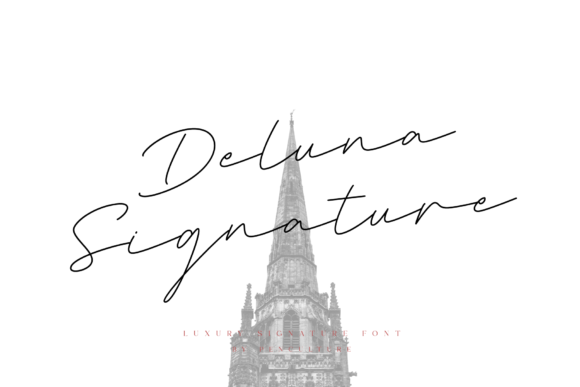
Journey into the realm of elegance with Deluna Signature Font, a captivating script font that embodies grace and sophistication. Inspired by the allure of Vogue magazine, Deluna Signature is the perfect choice for those seeking to make a statement with their designs. Let your creativity soar as you explore the endless possibilities of this font, meticulously crafted by the talented team at Pen Culture.
Deluna Signature's slender strokes and graceful lines evoke a sense of timeless beauty. Its thin, delicate appearance adds a touch of refinement to any project, making it ideal for creating stunning wedding invitations that exude romance and elegance. Elevate your stationary art with Deluna Signature, transforming ordinary cards and letters into exquisite works of art that leave a lasting impression.
Unleash your creativity on social media with Deluna Signature, crafting eye-catching posts that demand attention. From captivating quotes to stunning product announcements, Deluna Signature will elevate your content to new heights, ensuring your message stands out in the crowded digital landscape. Whether you're a seasoned designer or just starting out, Deluna Signature is the perfect font to add a touch of magic to your projects.
With its versatility and timeless appeal, Deluna Signature is a font that will accompany you on your creative journey, adding a touch of sophistication to every project you undertake. Don't settle for ordinary fonts; embrace the allure of Deluna Signature and let your designs shine with grace and elegance. Immerse yourself in the world of Deluna Signature and witness the transformation of your creative vision into a captivating reality.